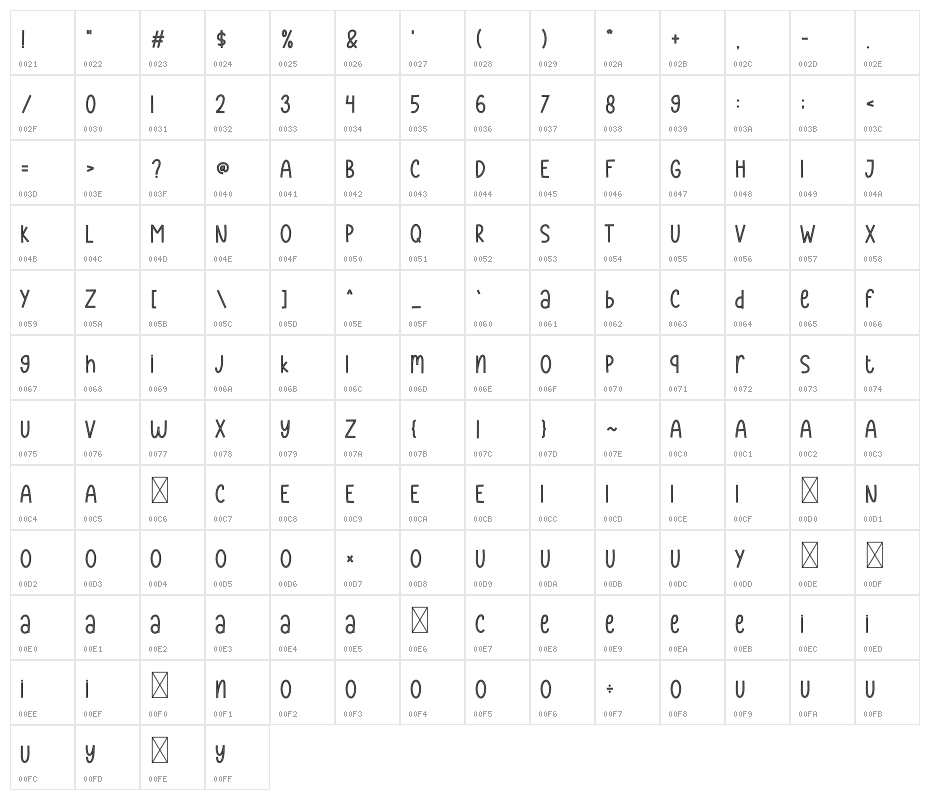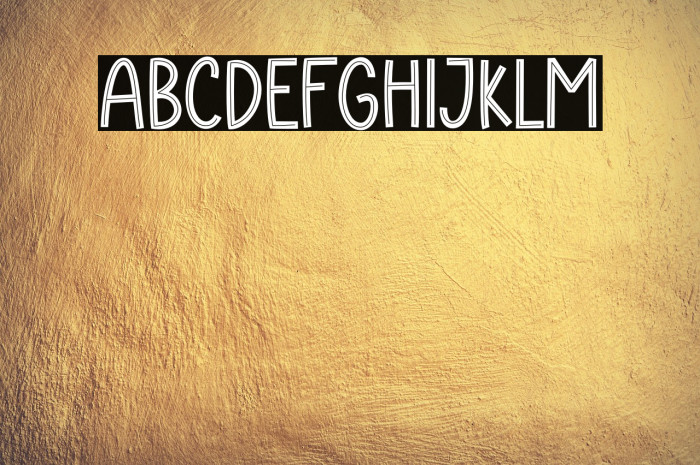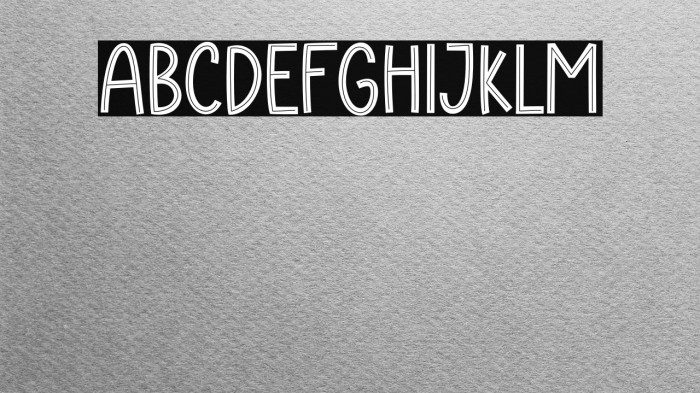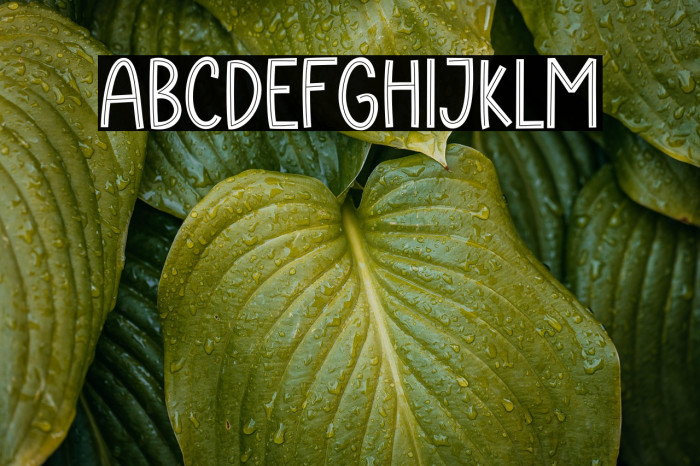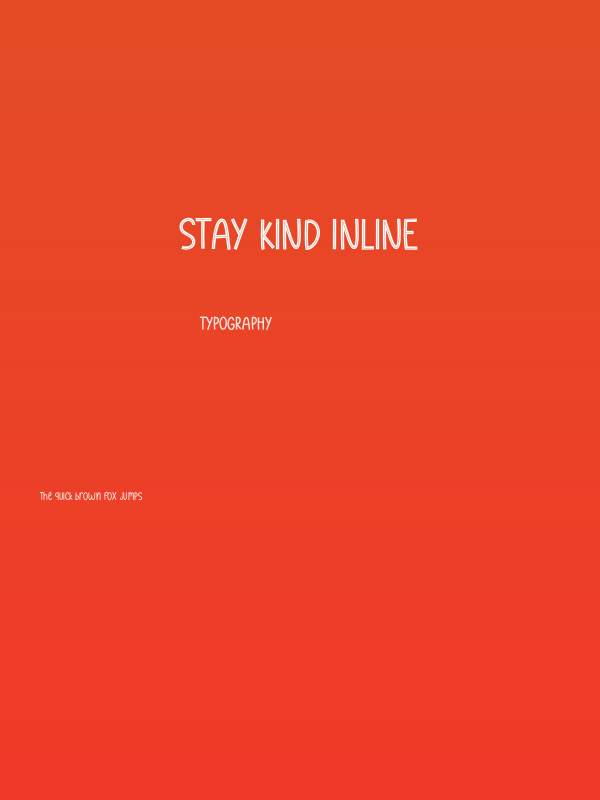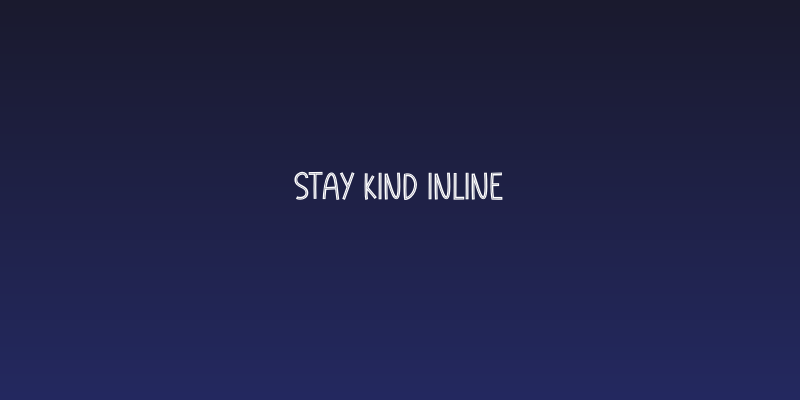
Stay Kind Inline Font
Stay Kind Inline Description
This font features a playful and friendly design with an inline style that adds a unique touch to each character. The letters are rounded and slightly elongated, giving them a whimsical appearance. The inline detail creates a sense of depth and dimension, making the font stand out. It maintains a consistent stroke width throughout, ensuring readability while adding a decorative flair. The characters are evenly spaced, providing a balanced and harmonious look. This font is versatile and can be used in various creative projects where a fun and approachable aesthetic is desired.
| Overall Style | Playful, Whimsical |
| Proposed Projects | Ideal for children's books, playful branding, greeting cards, and creative posters. |